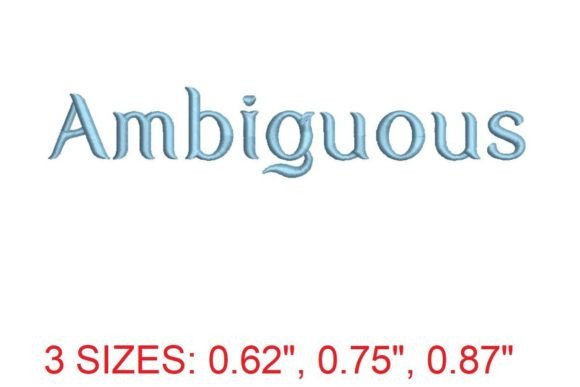
Ambiguous Embroidery Font Review
The Ambiguous Embroidery Font is a striking and adaptable design that offers a unique blend of elegance and versatility. As an embroidery designer, I've had the opportunity to evaluate this font for use in various small business applications, from branded merchandise to custom apparel. Its sophisticated yet approachable style makes it ideal for businesses looking to elevate their visual identity without sacrificing readability or charm.
First Impressions: A Blend of Sophistication and Approachability
From the moment I laid eyes on the Ambiguous Embroidery Font, I was struck by its refined character. It carries a sense of professionalism that feels both modern and timeless. The font's subtle curves and balanced spacing give it a polished look, while its clean lines ensure it remains legible even at smaller sizes. This makes it perfect for use in embroidered patches, apron embroidery, and cap embroidery where clarity is key.
What stands out most is how the font manages to feel both premium and friendly. It’s not overly ornate, which means it can be used in a wide range of settings—from a boutique’s logo to a café’s signage. For small businesses, this balance is crucial. It allows for a strong brand identity without overwhelming the viewer.
Real-World Use: From Patches to Tote Bags
I’ve tested the Ambiguous Embroidery Font across several applications, and it has consistently delivered impressive results. In embroidered patches, it holds up well even when scaled down, maintaining its sharpness and detail. This is especially important for small patch sizes where lettering can easily become distorted or lost.
For tote bag design, the font adds a touch of class without being too formal. It works beautifully on lightweight fabrics, making it a great choice for handmade product labels or custom apparel. When used on work shirts or event merch, it provides a clean, professional appearance that aligns with the overall brand aesthetic.
Where to Use With Caution
While the Ambiguous Embroidery Font is highly versatile, there are certain scenarios where caution is advised. At very small patch sizes, the font may lose some of its definition, so it’s best to test it at the intended scale before committing to production. Similarly, on curved surfaces like caps, the font may require slight adjustments to maintain its visual integrity.
High stitch density can also be a concern. If the font is used in intricate outlines or detailed designs, it may require additional stabilizer to prevent puckering or distortion. On textured fabrics or dark uniforms, the contrast between the thread colors and the background should be carefully considered to ensure visibility and clarity.
Impact on Brand Identity and Customer Perception
Brand identity is one of the most critical aspects of any small business, and the right font can make a significant difference. The Ambiguous Embroidery Font helps reinforce a sense of professionalism and quality, which can enhance customer trust and recognition. When used consistently across all merchandise—whether it’s an apron embroidery or a tote bag design—it creates a cohesive visual language that strengthens the brand’s presence.
For handmade brands or Etsy sellers, this font adds a level of sophistication that can elevate the perceived value of the finished product. It also supports a more polished presentation, which is essential for buyer engagement and repeat business.
Practical Tips for Embroidery Designers
As a professional embroidery designer, I always recommend starting with a black and white version of the Ambiguous Embroidery Font to assess its form and structure. Testing it at small patch size is equally important to ensure it remains legible and clear. Checking thread color contrast against the fabric is another critical step, as poor contrast can make the design appear washed out or unclear.
Spacing and hoop size should also be reviewed carefully. Some fonts may require larger hooping areas to accommodate their design, especially if they have extended characters or special features. Using the proper stabilizer is essential, particularly when working with delicate or stretchy fabrics.